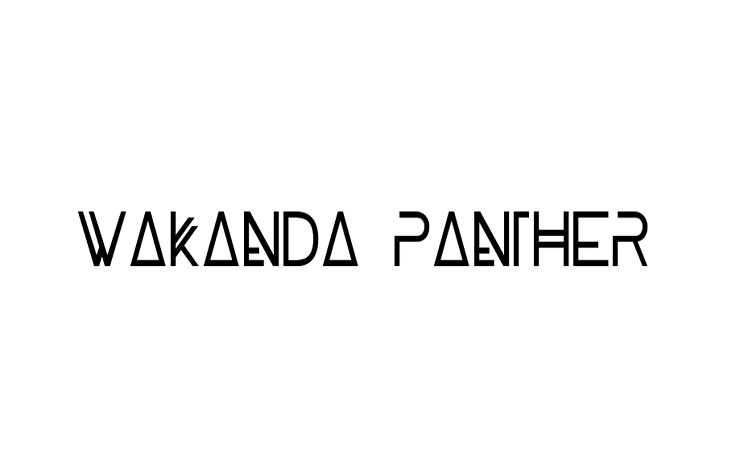
At first glance, WAKANDA PANTHER FONT looks a bit uncommon and weird. It has a unique style of letters that makes it look almost like pixelated letters.
However, the typeface will go along great with your technology-themed designs. This elegant typeface was designed and shared by spideraysfonts.
It consists of a geometric standard typeface with a proper letter width. And it also has incredible clarity on the big screens that are thought to be used for a variety of purposes.
Style: | Geometric, Futuristic, Unique |
In the image below see the appearance of this typeface in geat the idea of the Wakanda Font.
This unique and elegant font has a popular texture that can also be used for elegant banners, unique covers, movie posters, logos, brochure layouts, weddings, an invitation or business card design, quotes making, game titlings, etc.